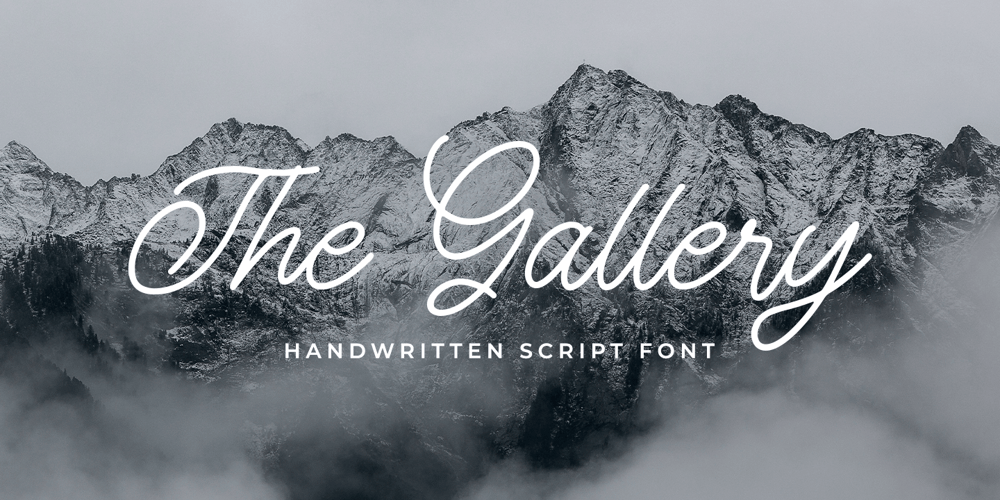
The Gallery
The Gallery font
The Gallery Font Family was designed by Virgiawan Listanto and published by Stringlabs Creative Studio. The Gallery contains 1 styles and family package options. The Gallery is a unique monoline script font. It features gorgeous swashes and ligatures that make this script incredibly versatile. Whether you’re looking for fonts for Instagram or calligraphy scripts for DIY projects, The Gallery will turn any creative idea into a true piece of art!